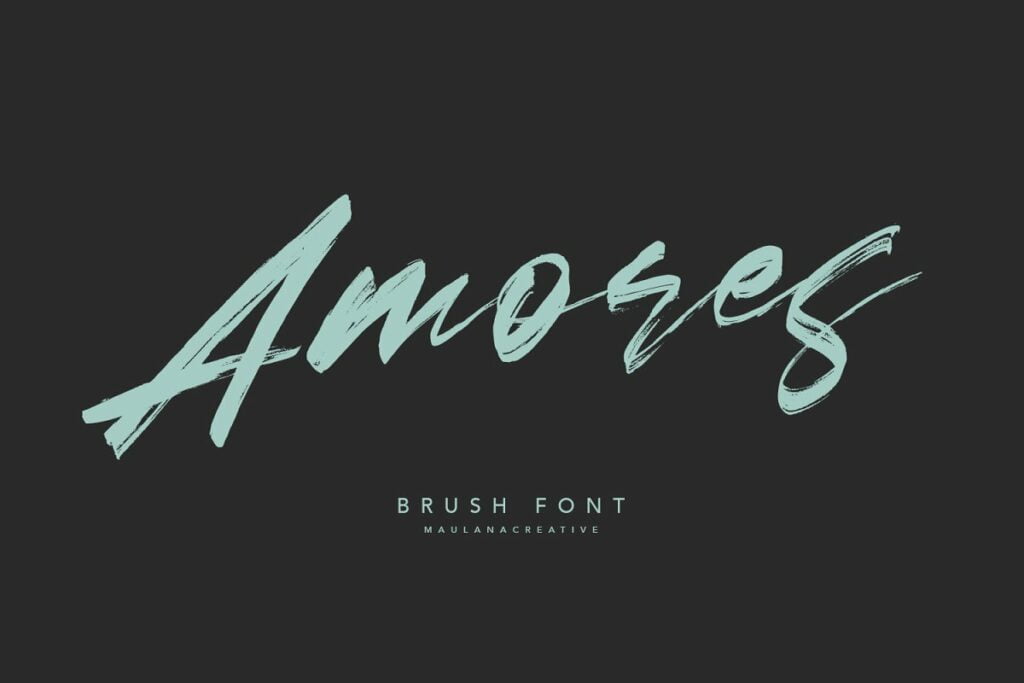
Amores Brush Script Font
Amores Brush Script Font is an exciting hand-drawn font with brush style. It’s designed and shared by Maulana Creative. This beautiful script can make your text appear elegant, luxurious, and modern!